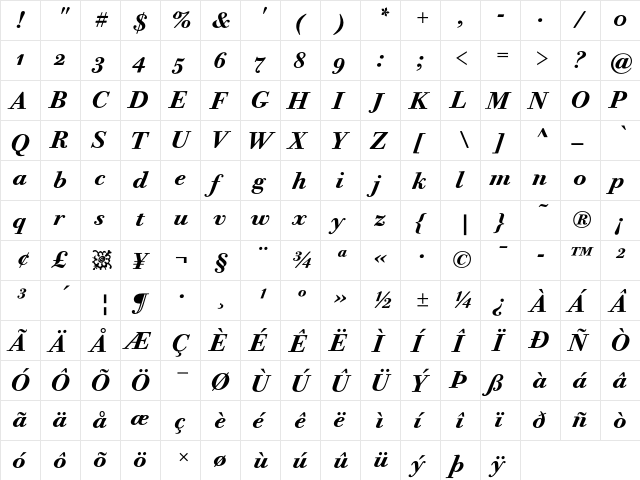
Bodoni Twelve ITC Bold Italic OS Font Preview
Design Context for Bodoni Twelve ITC Typeface
Bodoni Twelve ITC is a composed and adaptable typeface that performs quietly and consistently across a wide range of design contexts. Its italic angle brings a sense of urgency and motion to the letterforms. The heavy weight commands attention and anchors typographic hierarchies.
Pro Tip: Try Bodoni Twelve ITC for annotation and caption copy alongside an upright companion — the contrast in angle creates a dynamic but ordered typographic system.